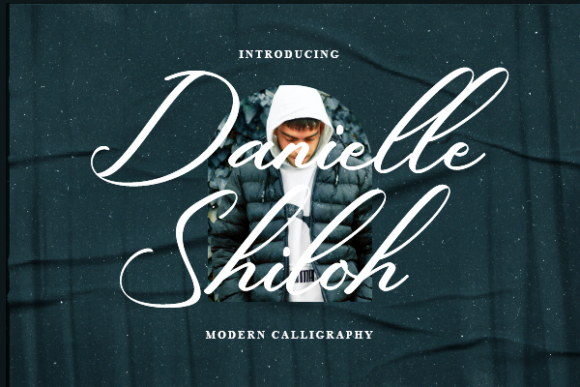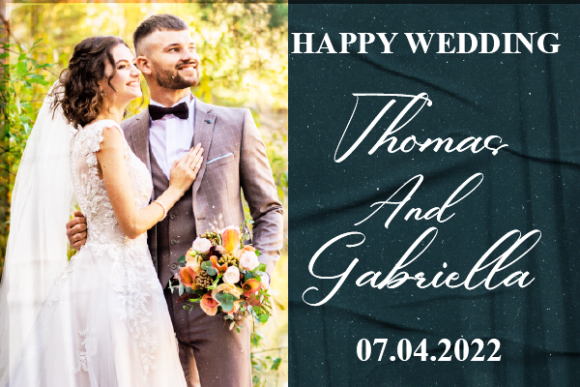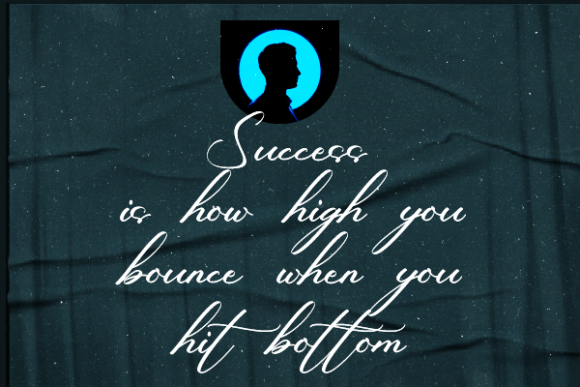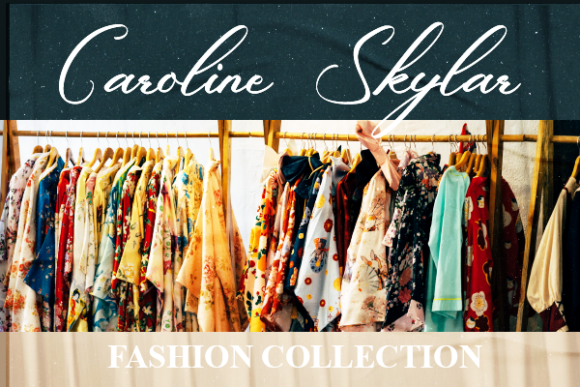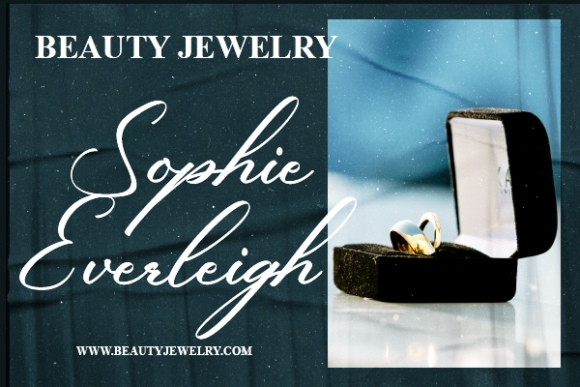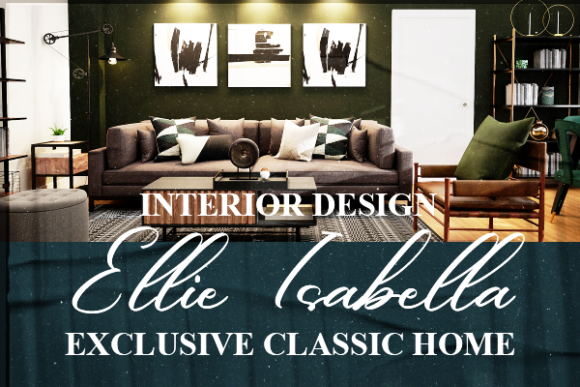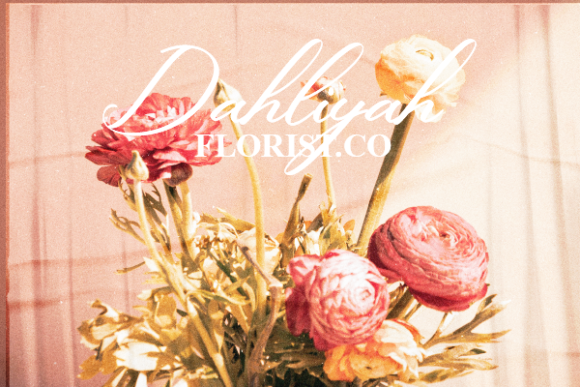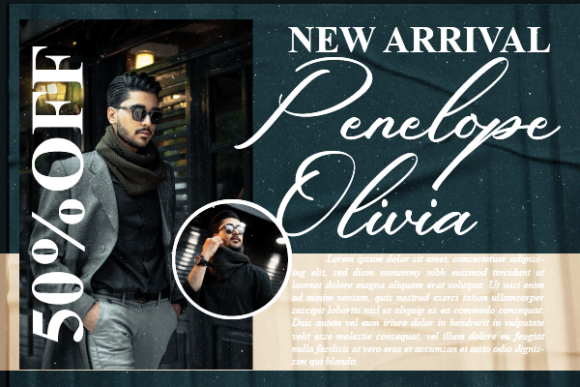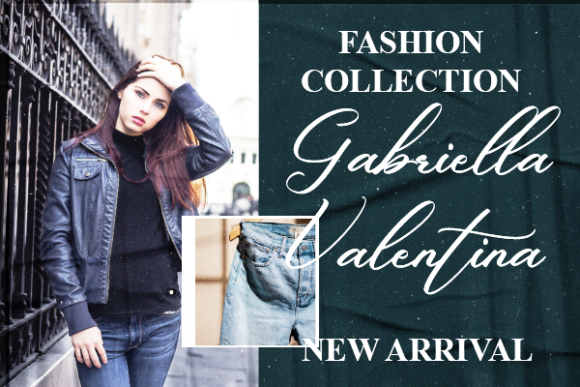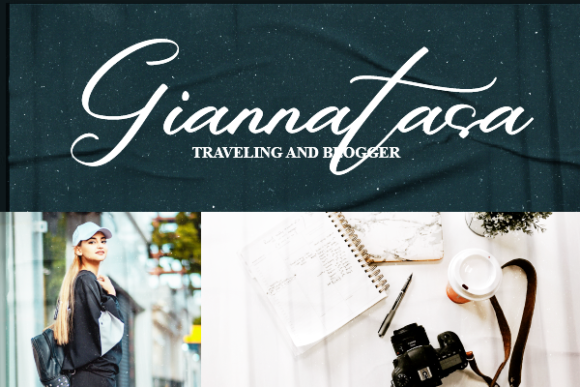
Danielle Shiloh Font
About Danielle Shiloh Font
Danielle Shiloh is a sophisticated and delicate script font that effortlessly blends fashion and elegance. With its graceful and flowing letterforms, this font is an excellent choice for a wide range of design projects, offering versatility and timeless appeal.
Ideal for logos, Danielle Shiloh lends an air of sophistication to your brand identity. Its curvaceous strokes and refined details create a memorable and distinctive logo that exudes a sense of style and class. Whether you’re launching a new business or rebranding an existing one, this font adds a touch of luxury to your visual identity.
When it comes to branding projects, Danielle Shiloh shines as a versatile and adaptable choice. Whether you’re designing packaging labels for products, creating promotional materials, or developing a cohesive brand presence, this font’s exquisite script style adds a touch of refinement and elegance to every element.
The font’s delicate and fashionable aesthetic extends seamlessly to photography projects. Use Danielle Shiloh to watermark your images, adding a signature touch that enhances their visual appeal while maintaining a sense of sophistication.
Special events such as weddings and celebrations are also perfect opportunities to showcase the beauty of Danielle Shiloh. From elegant invitations to stylish place cards and menus, the font’s graceful lines and intricate details create a luxurious atmosphere that leaves a lasting impression on guests.
The versatility of Danielle Shiloh truly shines in its ability to enhance a wide variety of design projects. Its beautiful script taste elevates the overall visual impact, creating a sense of beauty and refinement that resonates with your audience.
In summary, Danielle Shiloh is a font that embodies fashion, delicacy, and elegance. Its suitability for logos, branding, labels, photography, and special events makes it a versatile asset in your design toolkit. By incorporating Danielle Shiloh into your projects, you’re infusing them with a touch of sophistication and refinement that elevates their overall aesthetic and leaves a lasting impression.